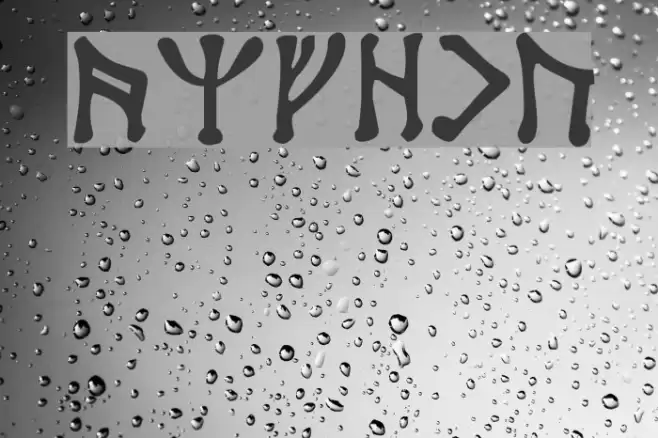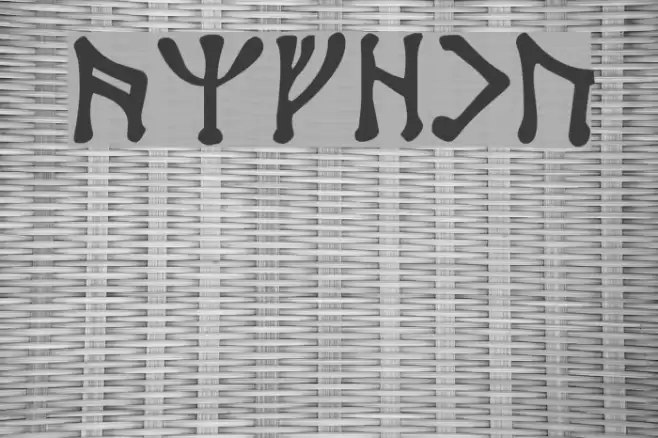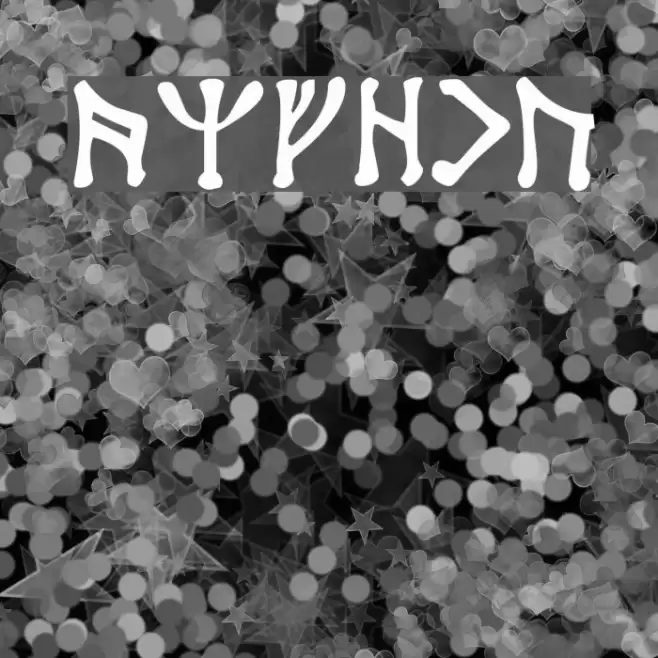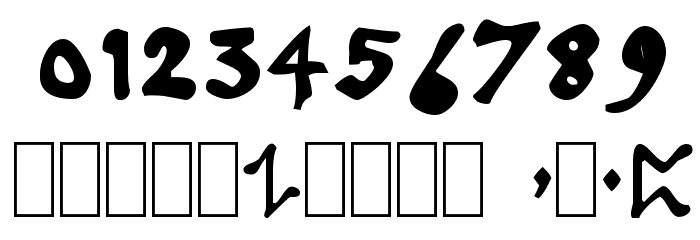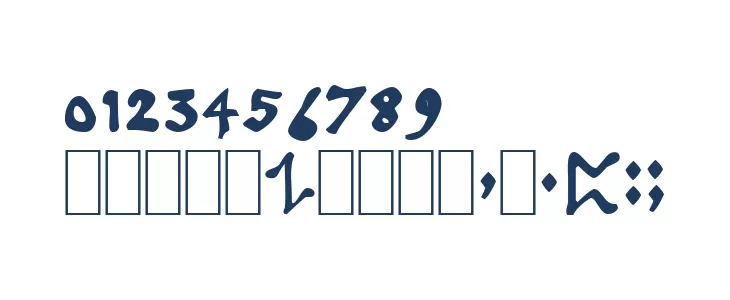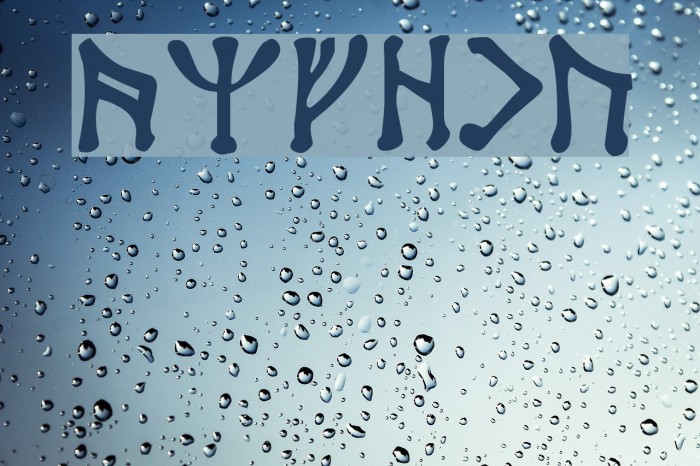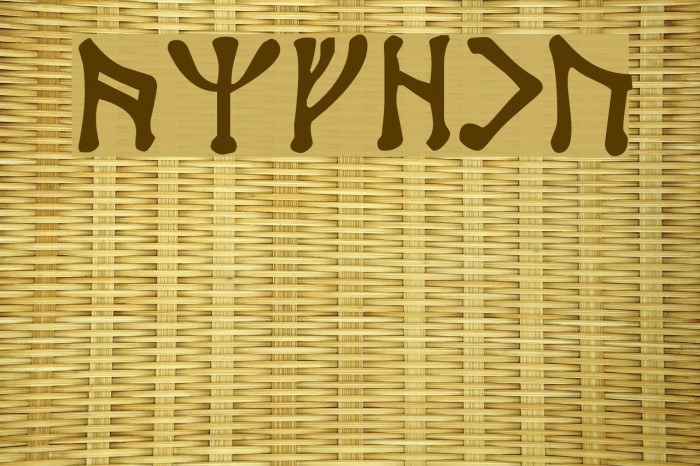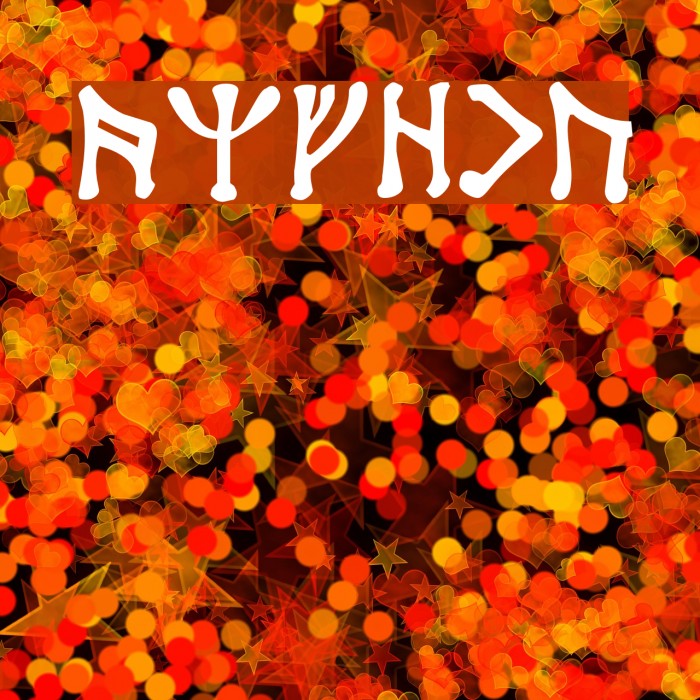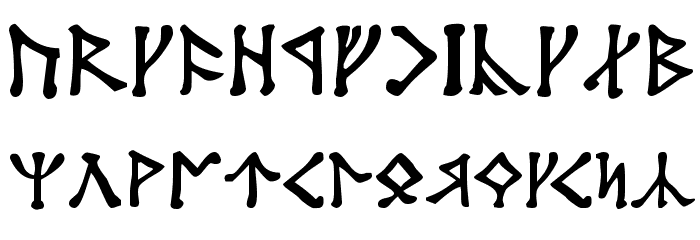
Angerthas Font
Angerthas Description
This font is inspired by ancient runic alphabets, featuring angular and geometric shapes that evoke a sense of mystery and antiquity. The characters are bold and distinct, with a hand-carved appearance that suggests a historical or fantasy theme. The numbers and special characters maintain the same stylistic approach, ensuring consistency throughout the set. The overall design is decorative, making it suitable for projects that require a touch of the mythical or the fantastical. The font's unique style makes it stand out, ideal for creative and thematic applications.
A decorative font inspired by ancient runes, featuring bold, angular characters from Dingbats fonts.